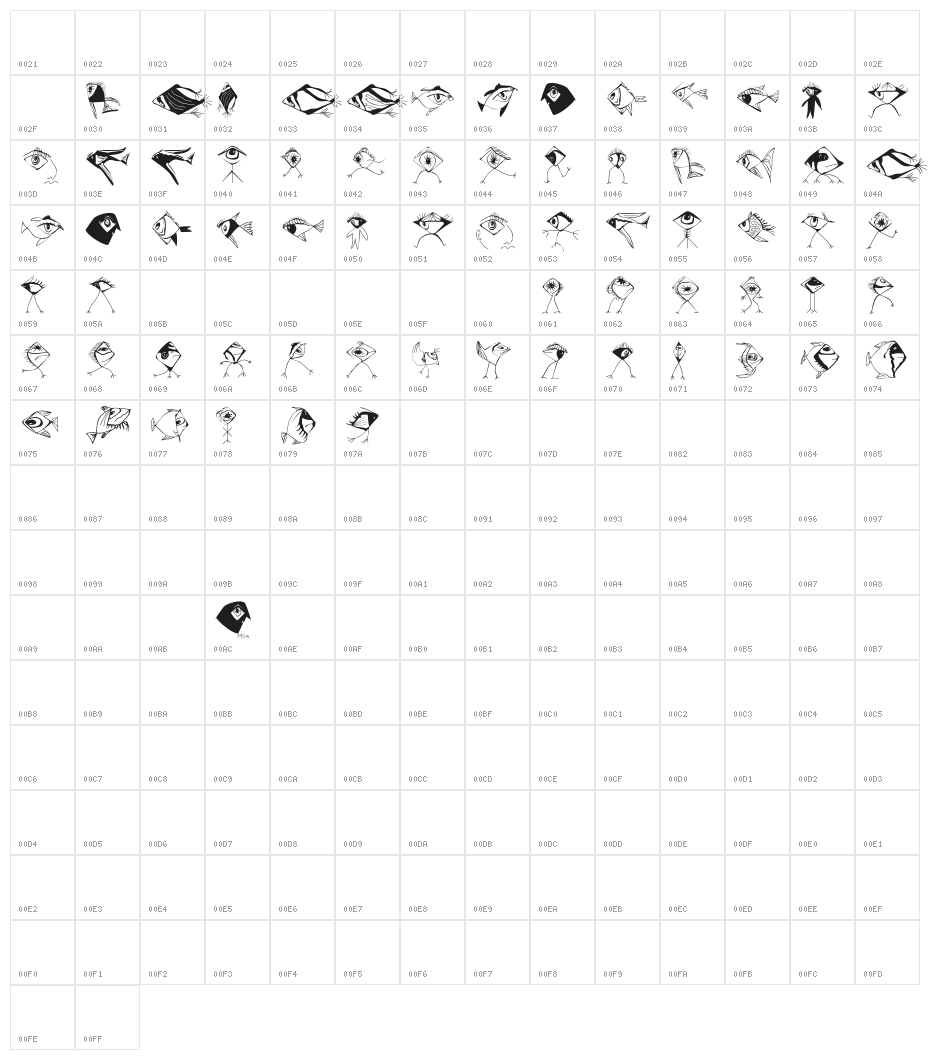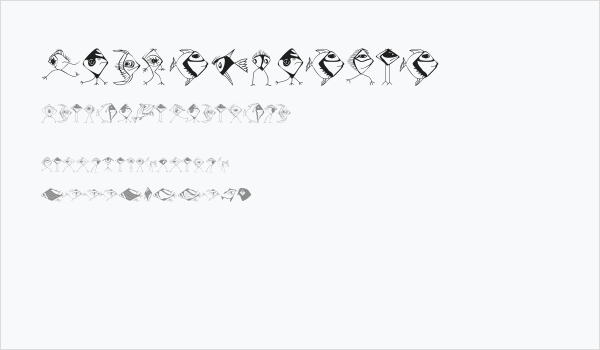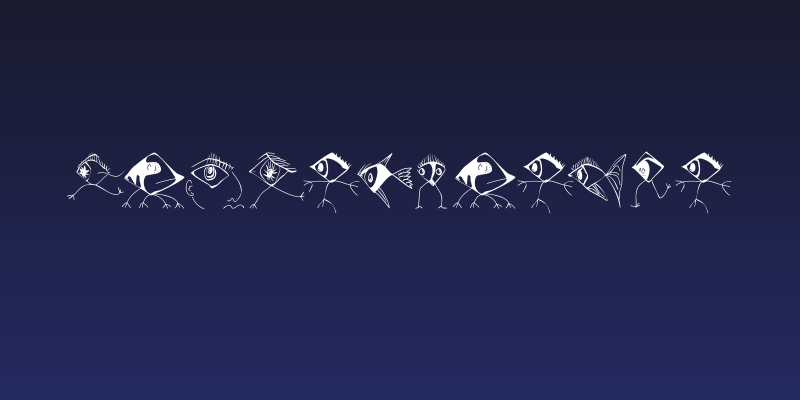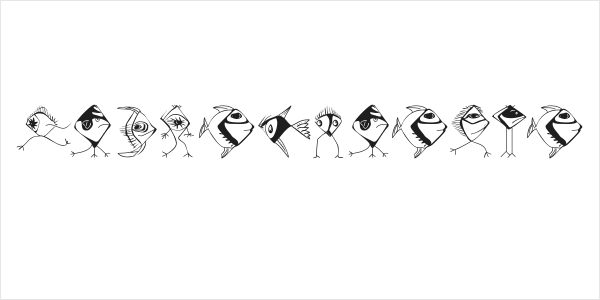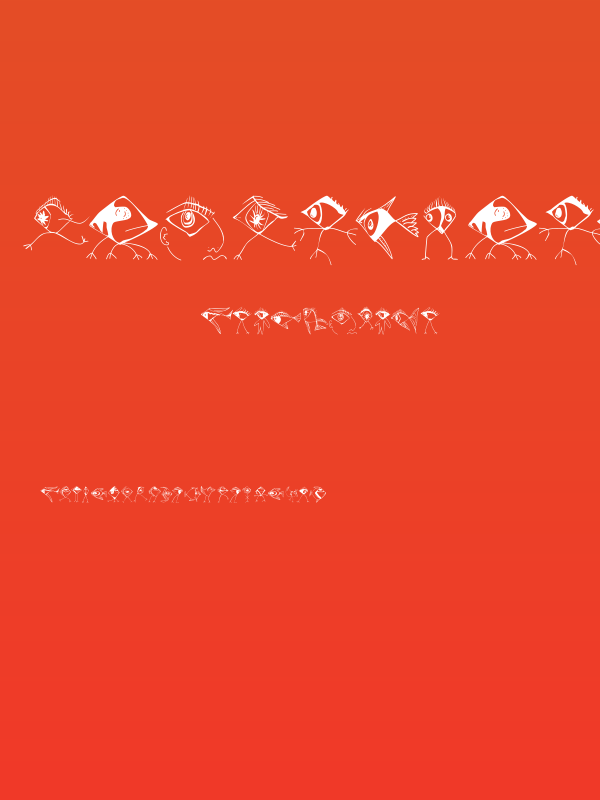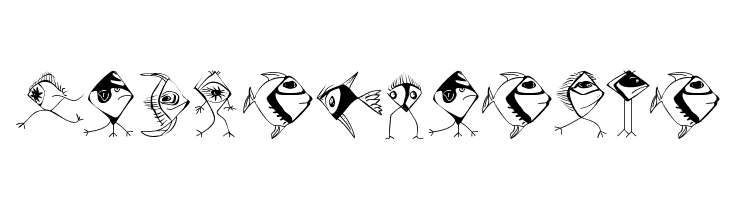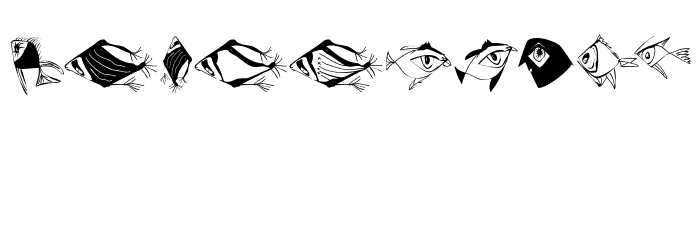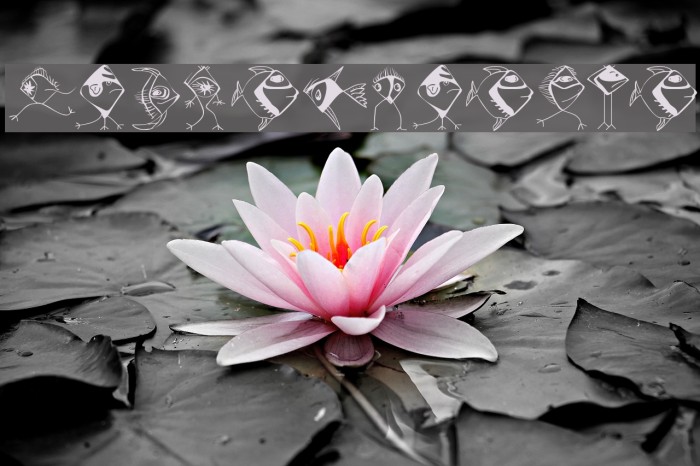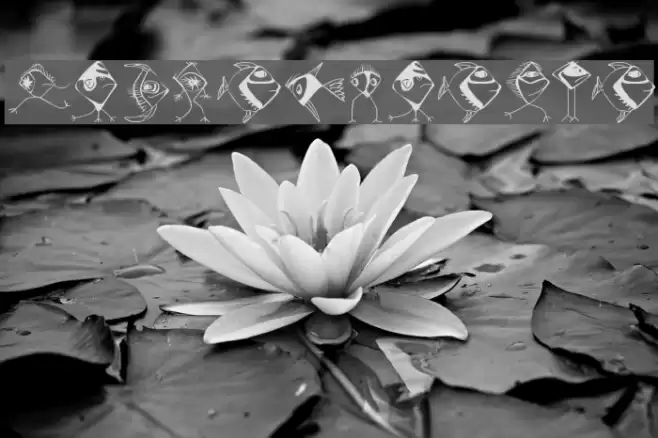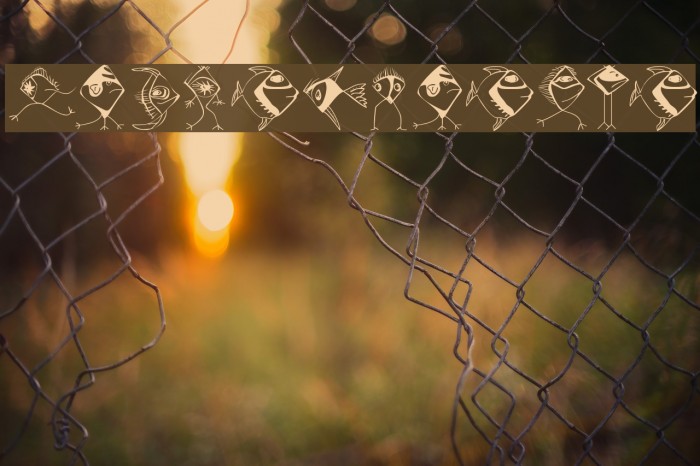
BirdsNFishes Font
✎ Dingbats
| حالة الاستخدام | Logos, Posters, Artistic Projects |
| مشاريع مقترحة | Ideal for children's books, creative posters, artistic branding, and any project seeking a whimsical and imaginative touch. |